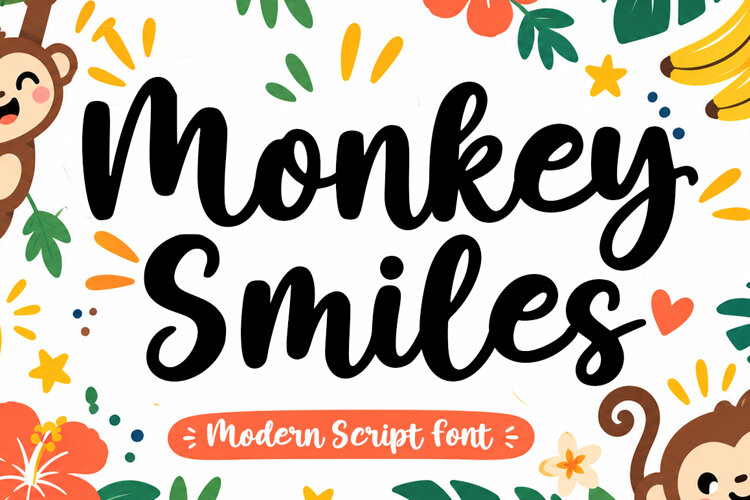
Monkey Smiles is a playfully handcrafted modern script font designed to bring joy, warmth, and a friendly touch to your creative projects. With its smooth, rounded curves and cheerful handwritten flow, this typeface captures a playful energy perfect for eye-catching designs.
Style: Playful, modern handwritten script
Vibe: Cheerful, fun, bold, and friendly
Best Used For: Children’s books, birthday invitations, greeting cards, logo design, packaging, branding, social media graphics, quote posters, and merchandise.